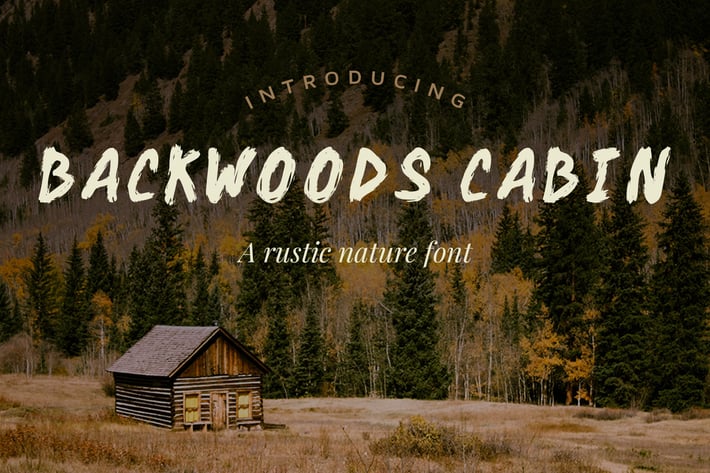
Backwoods Cabin Font
Backwoods Cabin is a rustic all-caps font that embodies the ruggedness of nature. The organic, handmade letters are reminiscent of old hiking signs or a pioneer cabin. Please look at all the previews above to see the included glyphs and example usage.